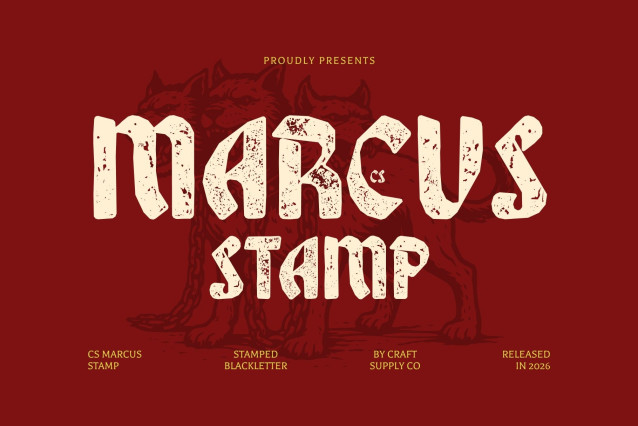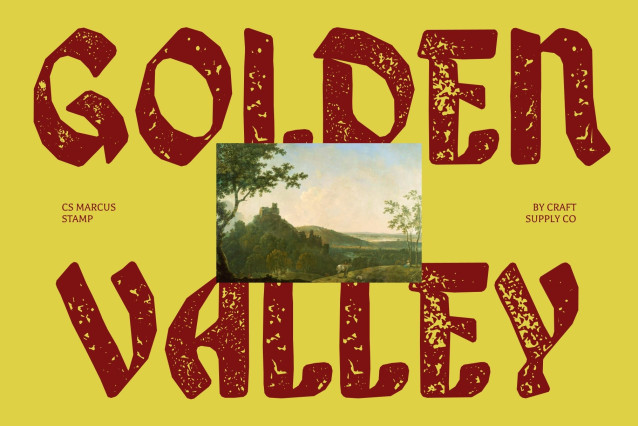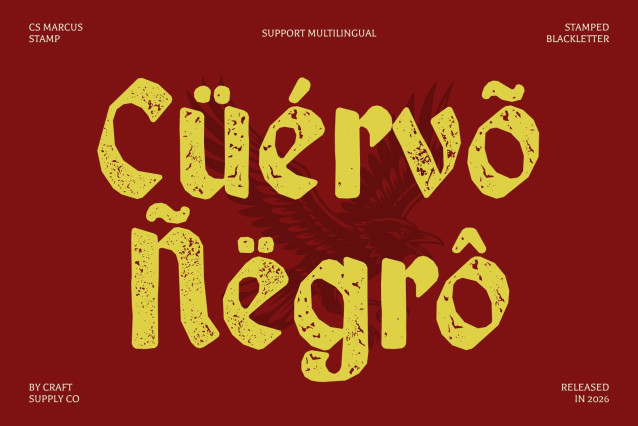
CS Marcus Stamp Font
CS Marcus Stamp – Blackletter Font: Where Darkness Meets Ornamental Power
Dramatic Form with Gothic Intensity
This is a blackletter display font that embraces darkness and drama through sharp, angular strokes and commanding structure. Its bold letterforms evoke a strong gothic presence, delivering an intense visual tone that feels both historic and powerful. Every character is crafted to express authority and depth, making it a striking choice for designs that demand attention.
Ornamental Detail with Artistic Precision
This font features intricate details that enhance its classic blackletter foundation. The decorative elements bring sophistication and complexity, allowing the font to communicate elegance alongside its bold attitude. This combination creates a refined yet dramatic style that stands out in both traditional and contemporary contexts.